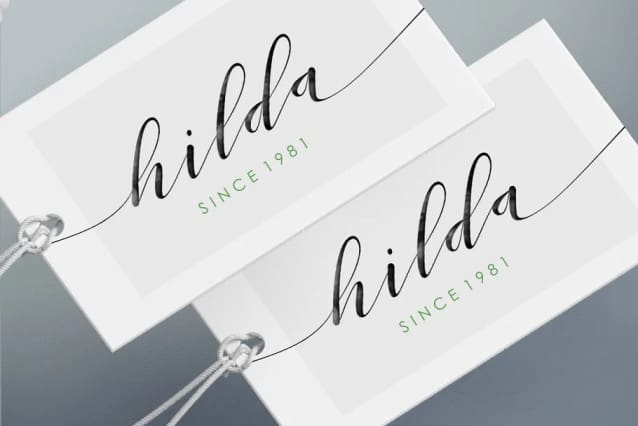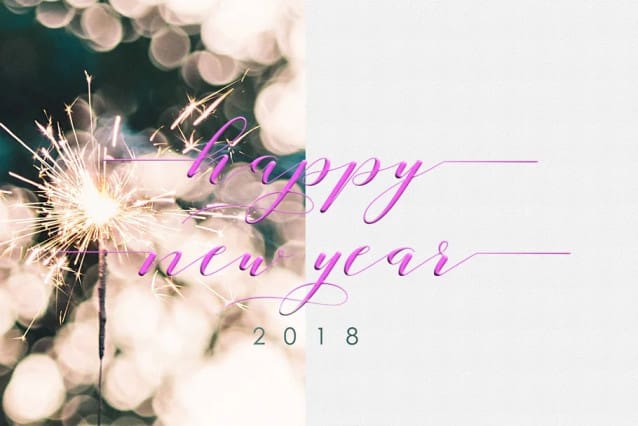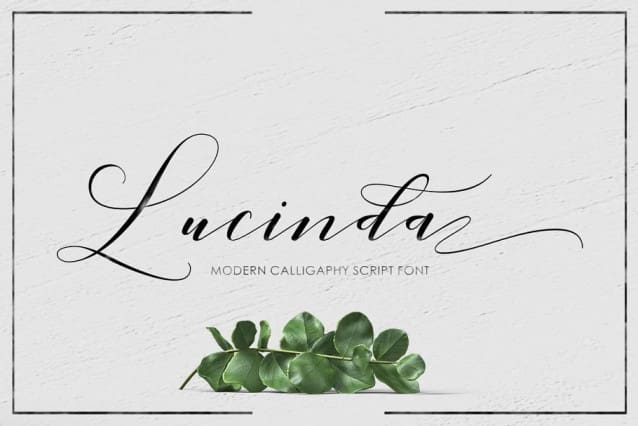
Lucinda Calligraphy Font
Lucinda Calligraphy Font is a modern calligraphy typeface, casual and pretty with swashes. Can be used for many purposes. such as title, signature, logo, wedding invitations, letterhead, signage, labels, newsletters, posters, badges, etc. Lucinda Script features Open type, including the initial and terminal letters, alternates, ligatures and International support for most Western languages ​​included.